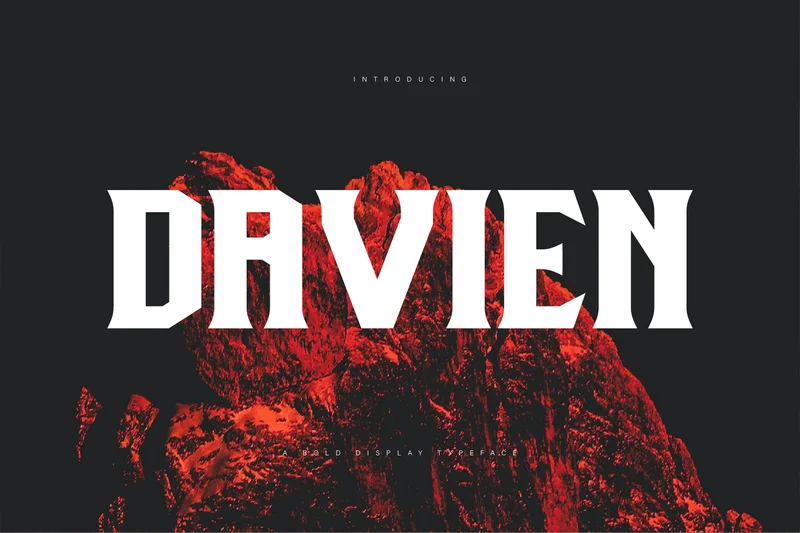
Davien – Cutting Edge Font
Is a cutting-edge display font designed to embody the essence of futuristic aesthetics, sports performance, and sleek minimalism. Its sharp angles and clean lines evoke a sense of speed, agility, and precision, making it perfect for modern designs that demand a high-tech, dynamic feel.